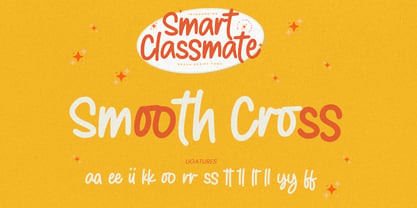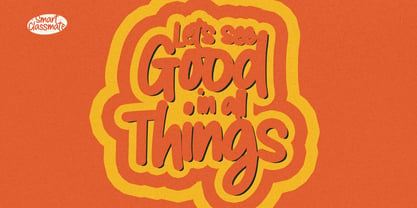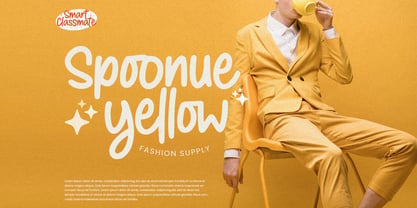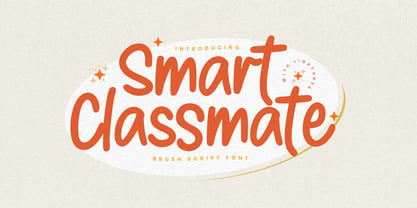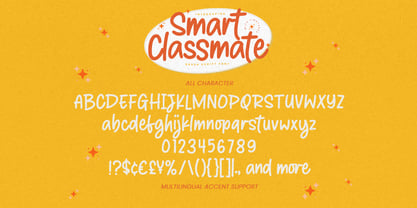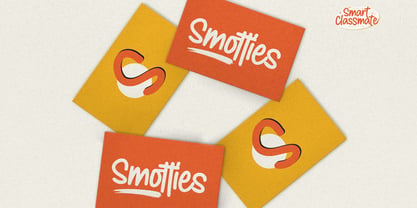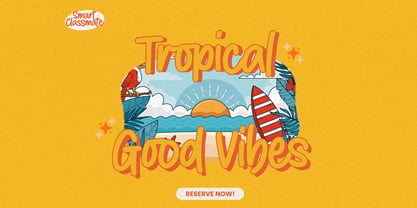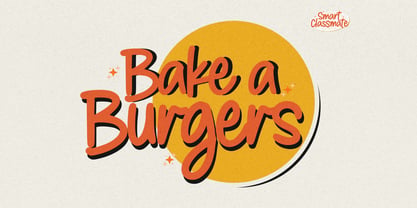
Smart Classmate
von Gassstype
Die Schriftfamilie Smart Classmate wurde von Abdul Malik Wisnu entworfen und von Gassstype veröffentlicht. Smart Classmate enthält 1 Stile. Mehr über diese Familie
Meet Smart Classmate, a playful and expressive brush script font designed to bring warmth, creativity, and a friendly handwritten personality to your designs. Inspired by the natural flow of brush lettering, this typeface features smooth curves, energetic strokes, and charming irregularities that create an authentic hand-crafted appearance. With its bold yet approachable character, Smart Classmate is perfect for designs that need to feel fun, youthful, creative, and personal. The flowing letterforms give your typography a dynamic rhythm, while the rounded shapes keep the overall appearance friendly and easy to enjoy.
Designer: Abdul Malik Wisnu
Foundry: Gassstype